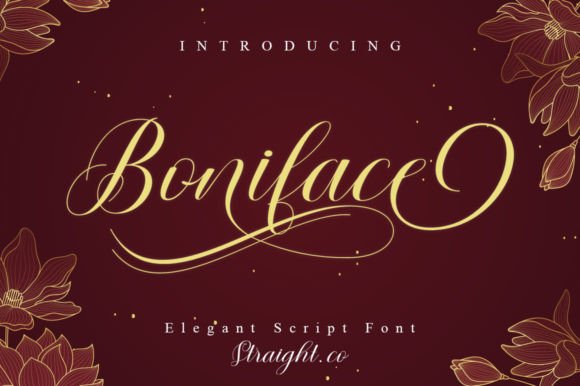
Welcome to the world of Boniface Font: A Magical Script for Enchanting Creations!
Step into the realm of Boniface Font, a captivating calligraphy script that will dance across your designs, leaving a trail of elegance and charm. Inspired by the beauty of handwritten letters, Boniface possesses an irresistible allure that will cast a spell on your creative endeavors.
With its sweet and bouncy characters, Boniface invites you to explore a world of endless possibilities. Whether you're crafting wedding invitations, designing logos that speak to the heart, or adding a touch of whimsy to your branding, this font will be your trusted companion.
As you delve into the depths of Boniface's swirly glyphs, you'll discover a treasure trove of extra glyphs, each carefully crafted to provide you with an array of options for your creative masterpieces. These extra glyphs are like hidden gems, waiting to be unearthed and incorporated into your designs, adding an extra layer of enchantment to your work.
But Boniface is more than just a pretty face. It's also a font that's as versatile as it is captivating. Whether you're working on a magazine, a poster, or a social media campaign, Boniface will effortlessly adapt to your vision, lending its charm to any project you undertake.
With Boniface by your side, you'll never be short of inspiration. Its elegant curves and playful personality will spark your creativity like never before. You'll find yourself pouring over your designs, tweaking and perfecting every detail, until you've created something truly magical.